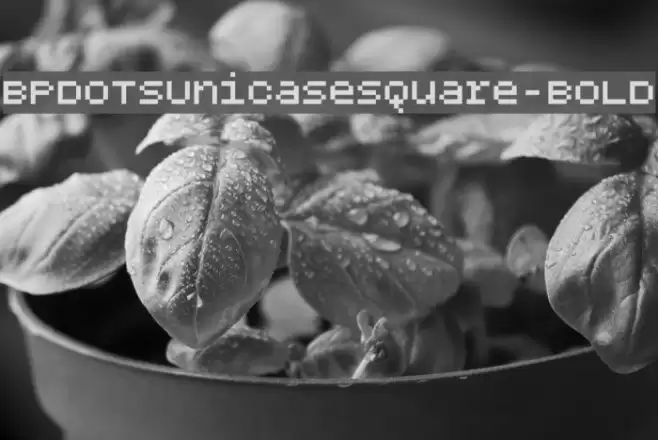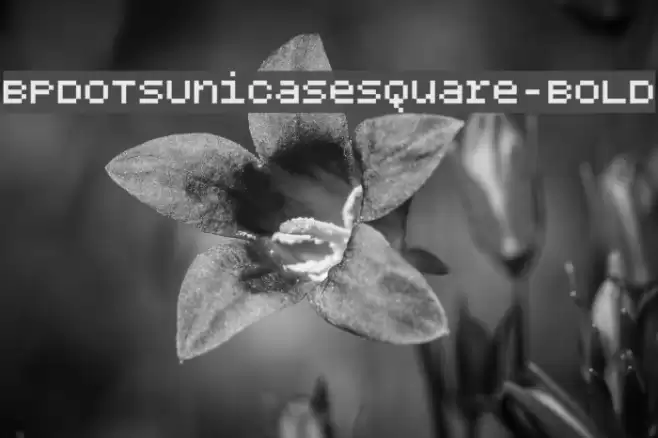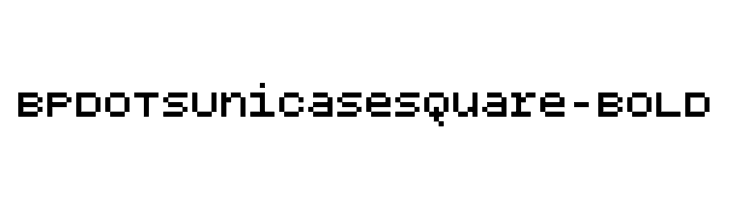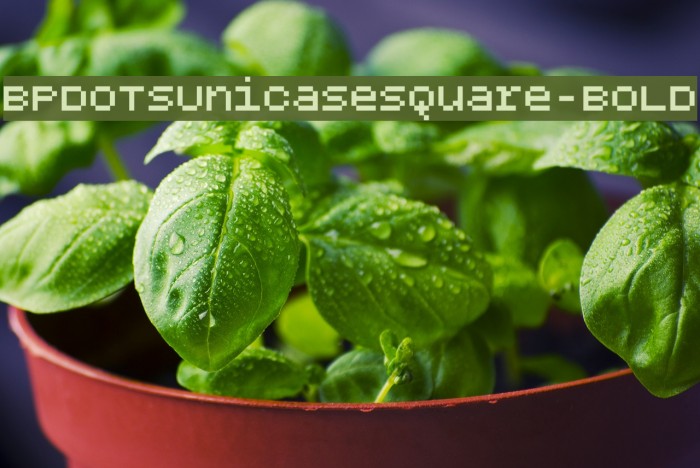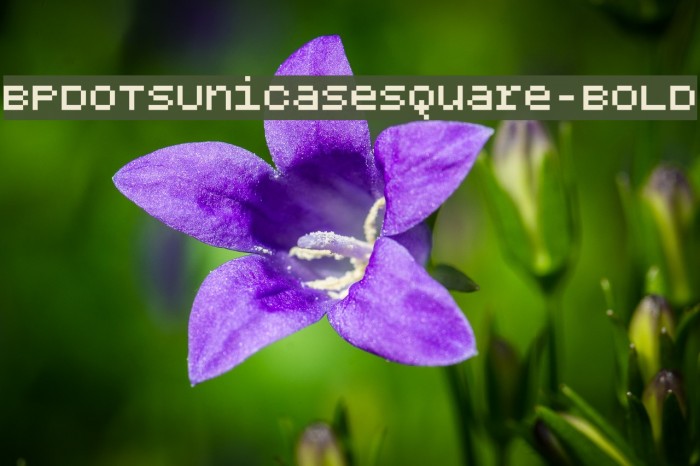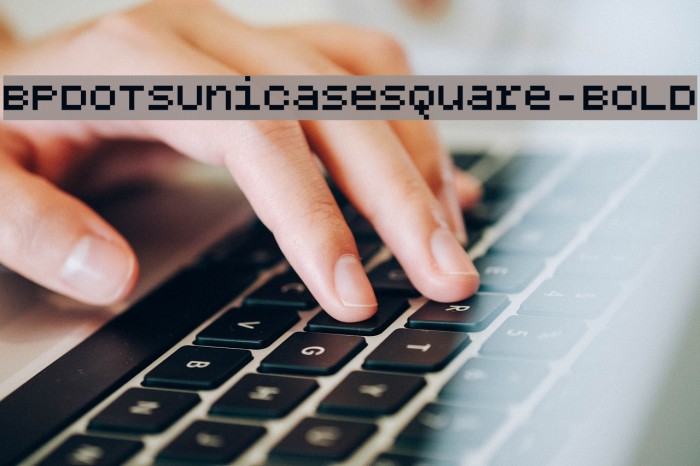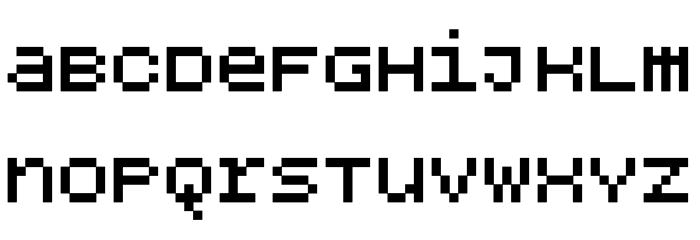
BPdotsUnicaseSquare-Bold Font
BPdotsUnicaseSquare-Bold Description
This font features a bold, pixelated design reminiscent of early digital displays and retro video games. Each character is constructed from a grid of square dots, giving it a distinctly digital and geometric appearance. The uppercase and lowercase letters maintain a consistent height, enhancing its unicase style. The numerals and special characters follow the same pixelated pattern, ensuring uniformity across all glyphs. This font's blocky and bold nature makes it highly legible at various sizes, while its unique style adds a playful, nostalgic touch to any project.
A bold, pixelated font with a retro digital aesthetic from Uncategorized fonts.
- Proposed Projects: Ideal for video game graphics, retro-themed designs, digital art, and tech-related branding.
- Overall Style: Retro, Digital
- Use Case: Headlines, Logos, Digital displays